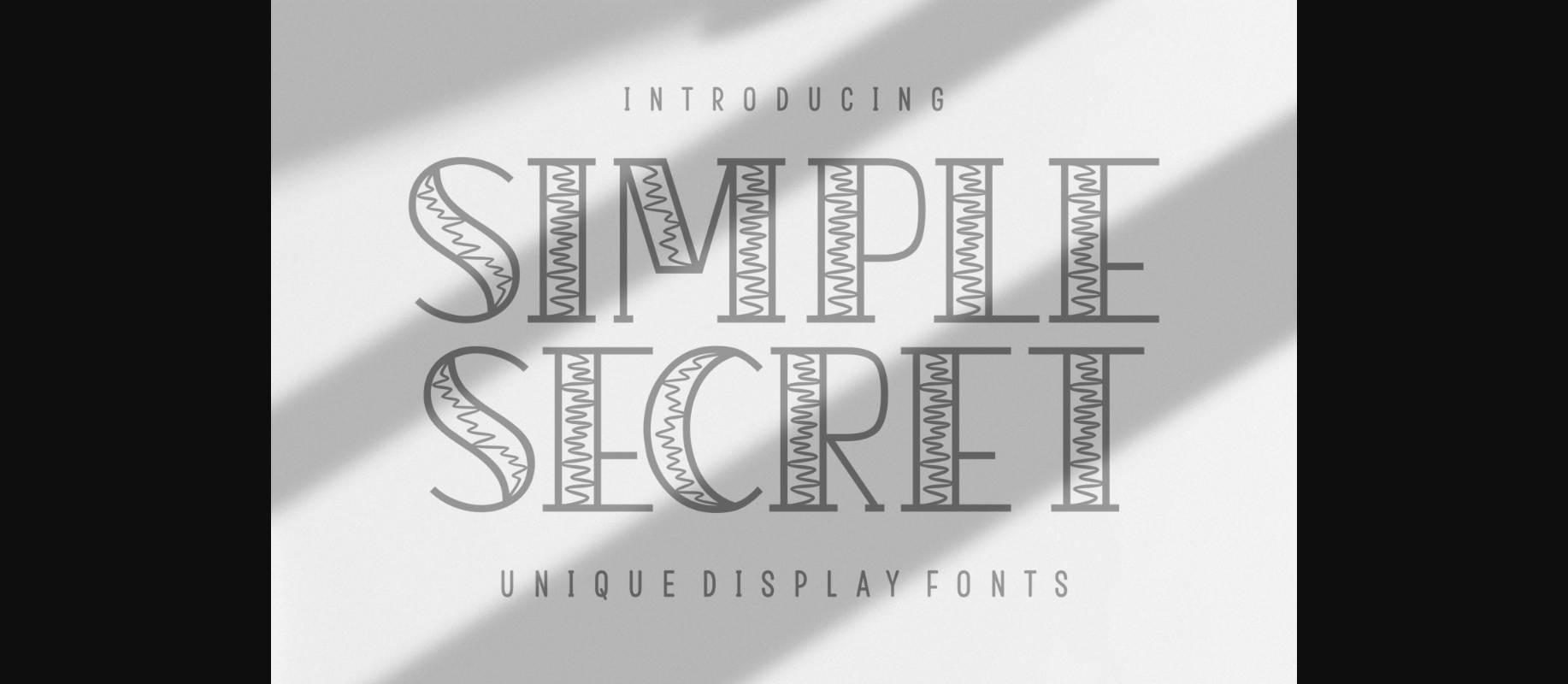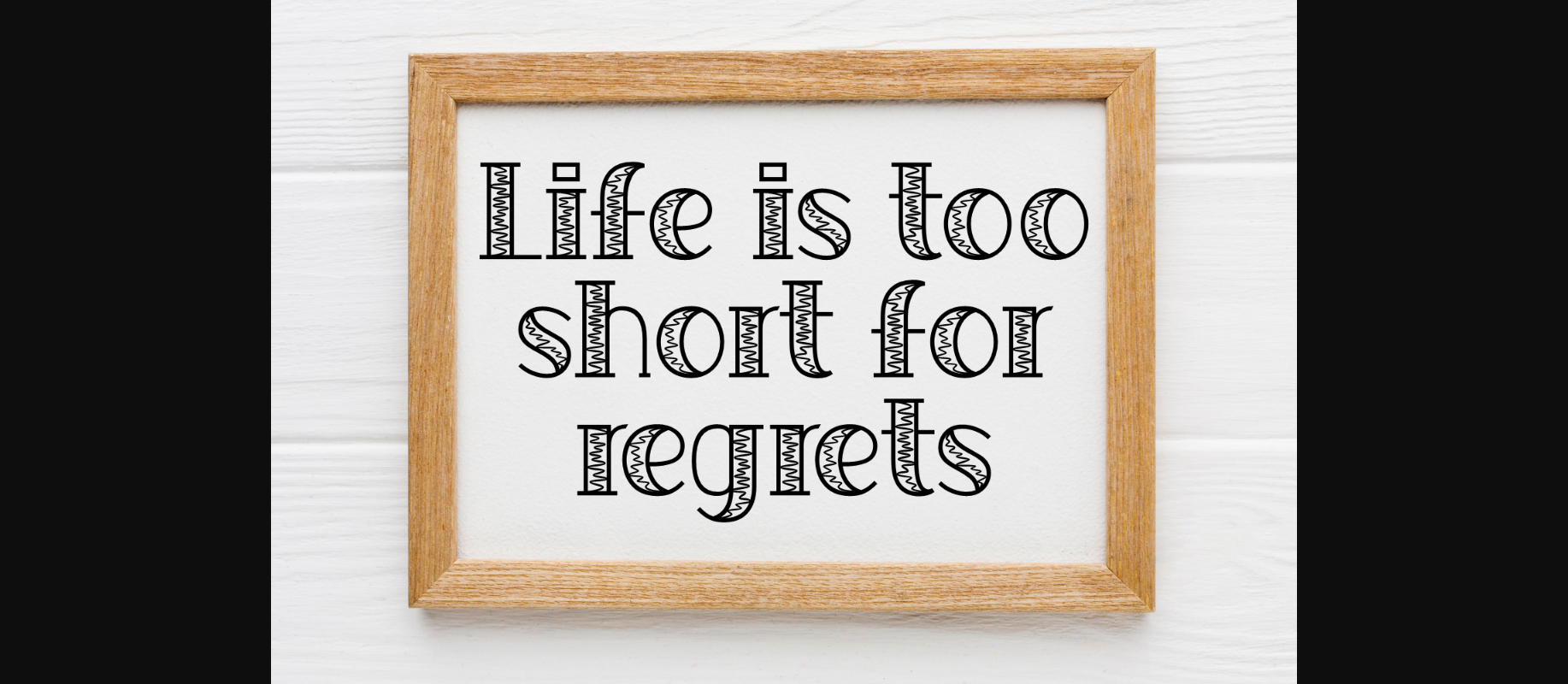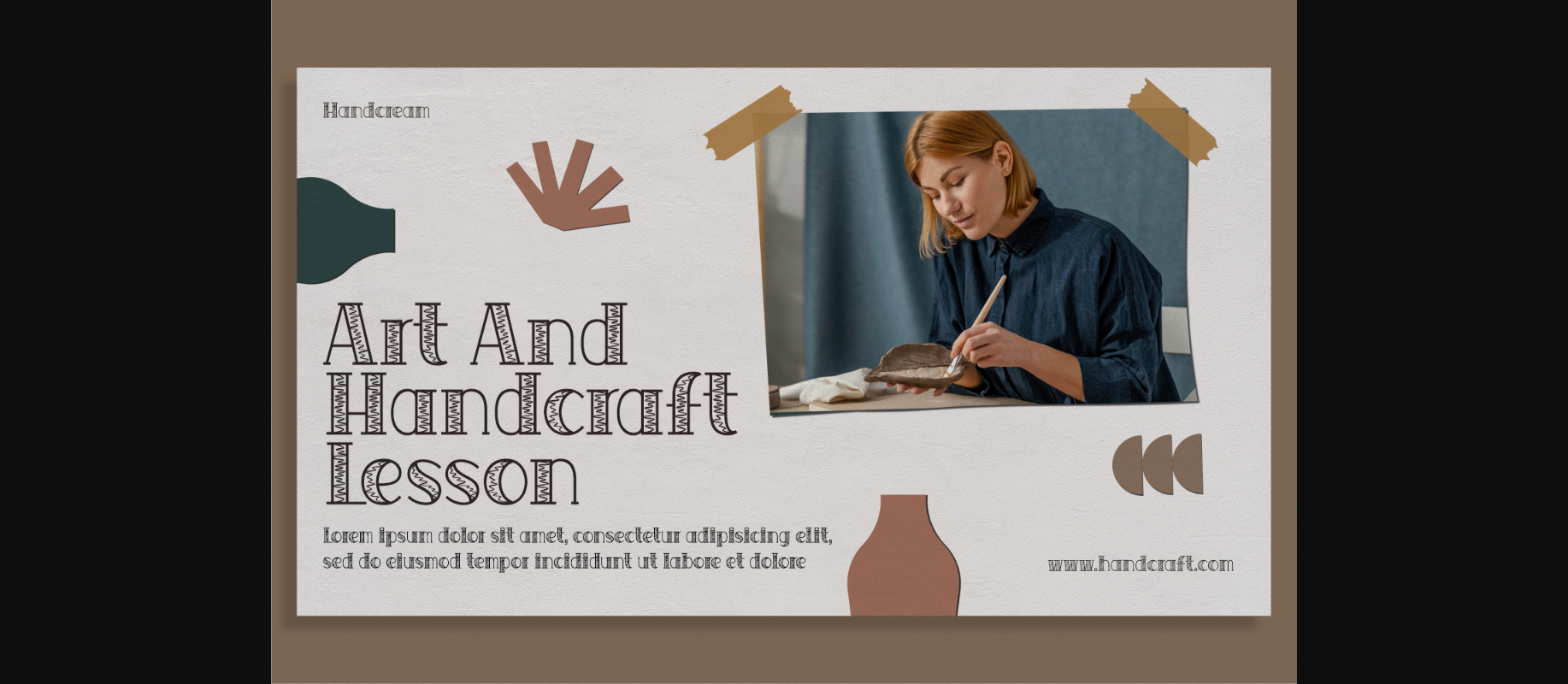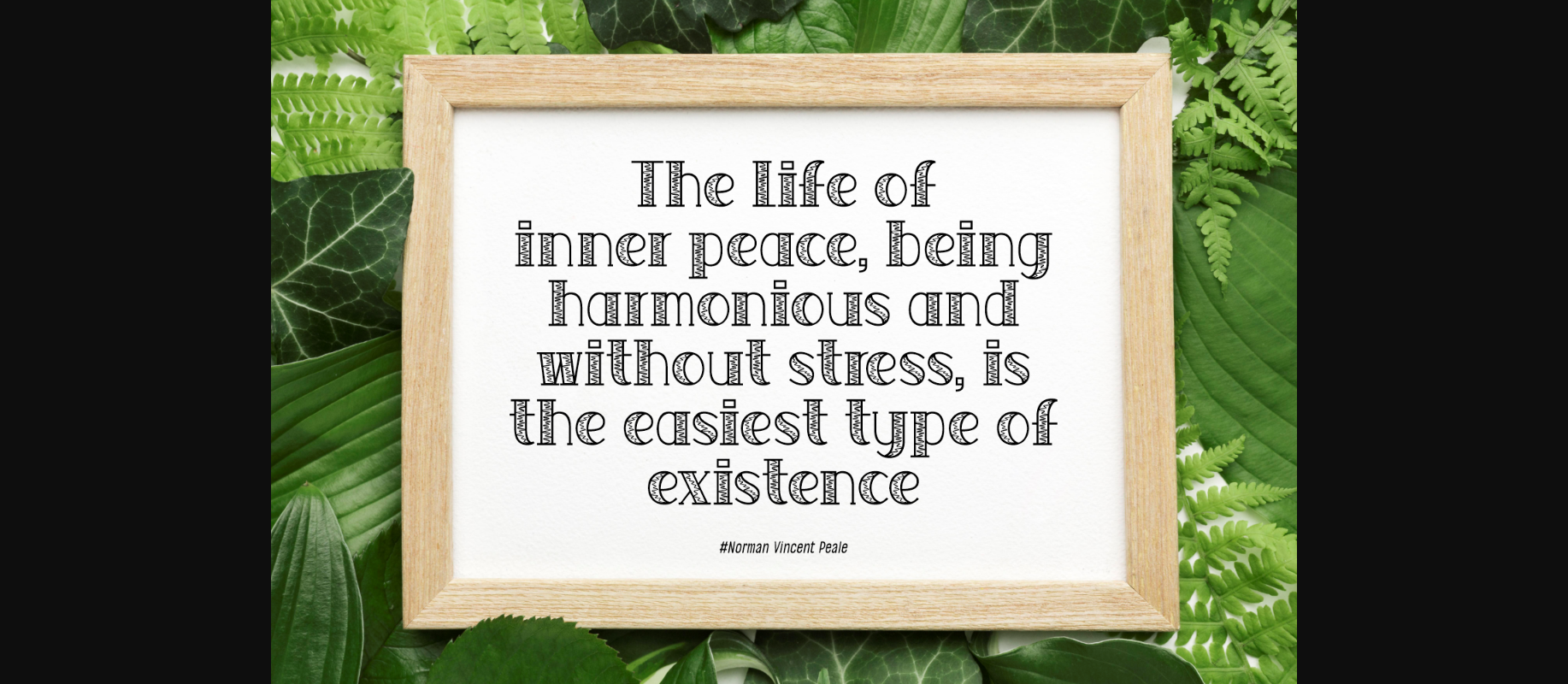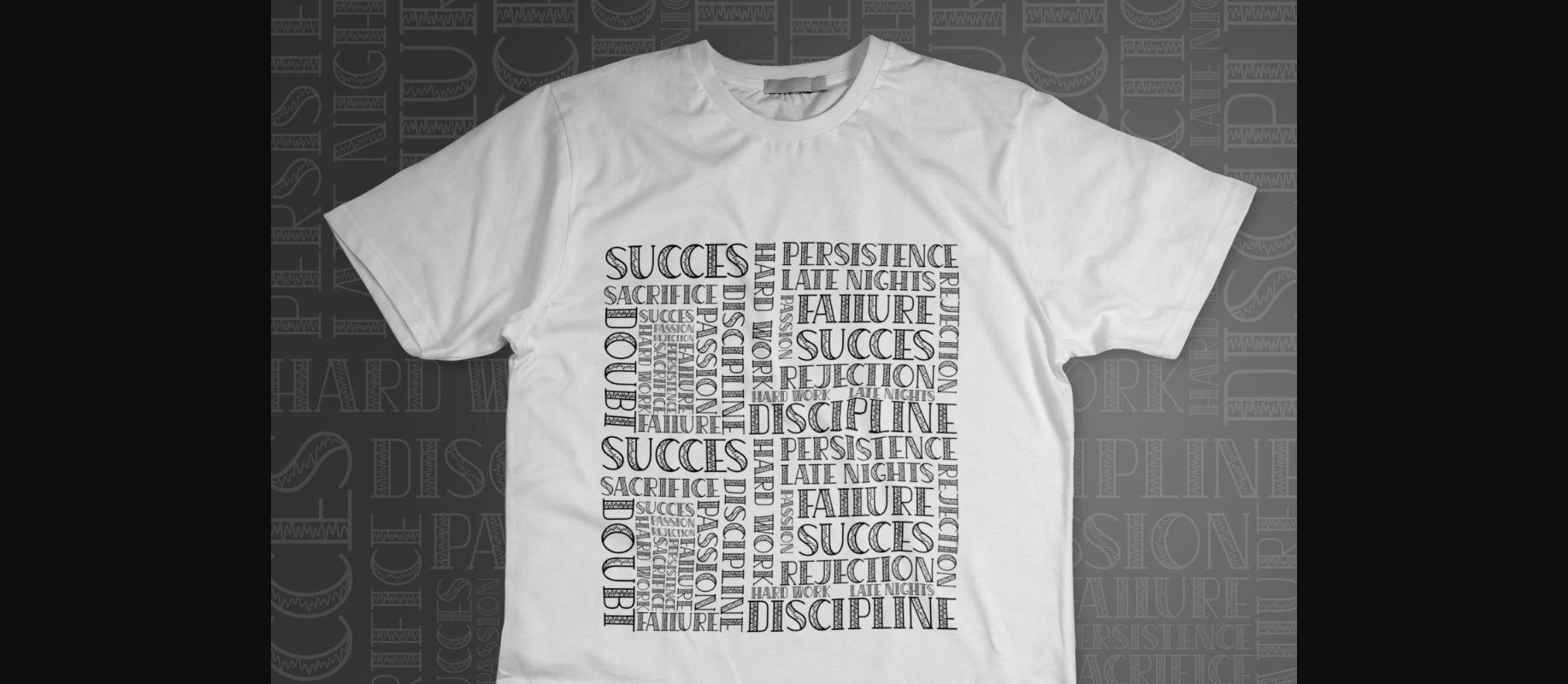
About Simple Secret Font
Simple Secret is a decorative font that offers a sophisticated and charming touch to your designs. Its elegant lines are perfect for enhancing invitations, posters, and social media posts. Give your graphics a unique and memorable edge with this font. This font is PUA encoded which means you can access all glyphs and swashes effortlessly!